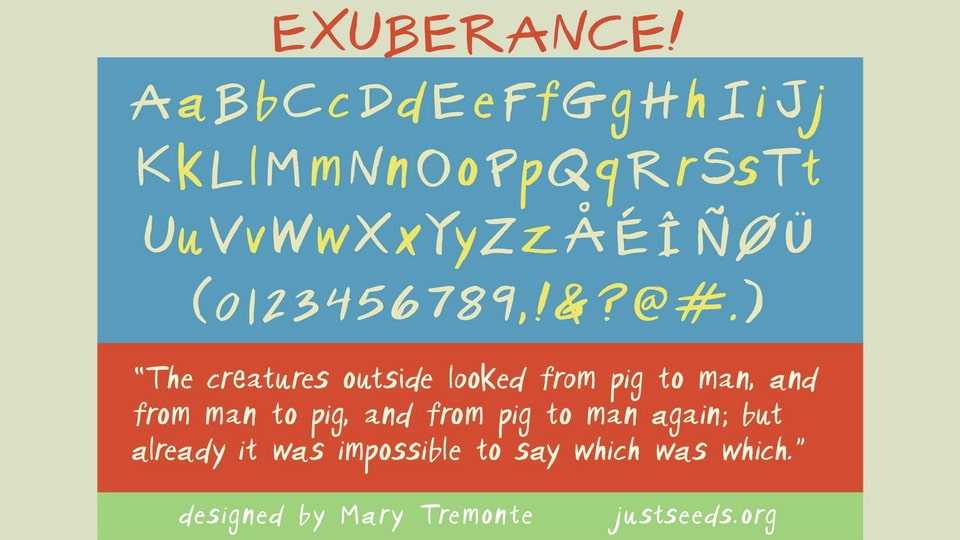
Download Exuberance font, a joyfully irregular hand-drawn script font that captures the essence of spontaneous creativity and playful expression.
Designer: Mary Tremonte